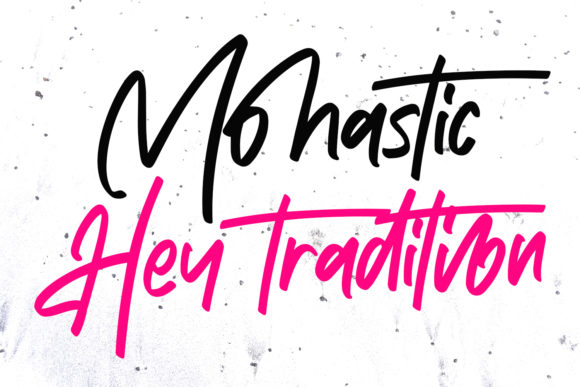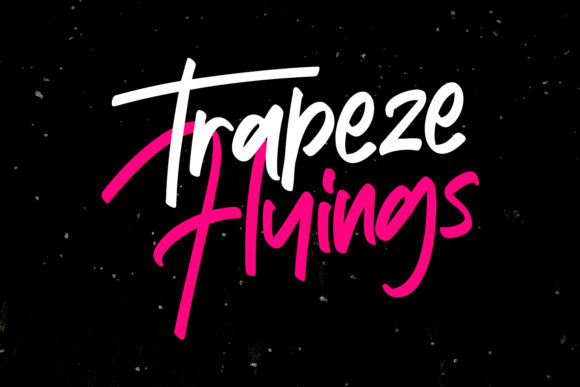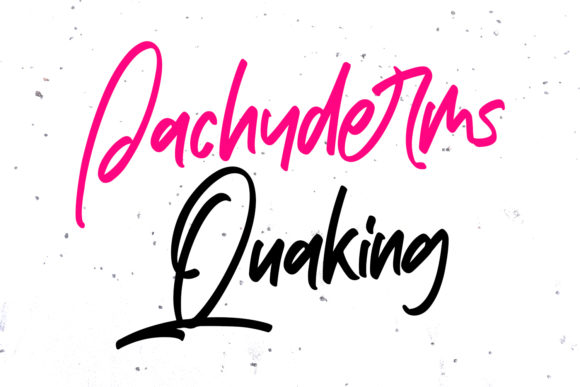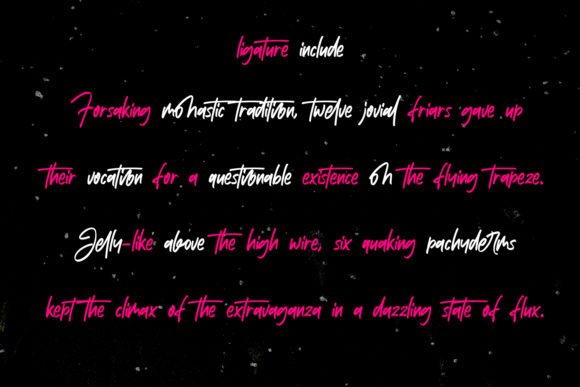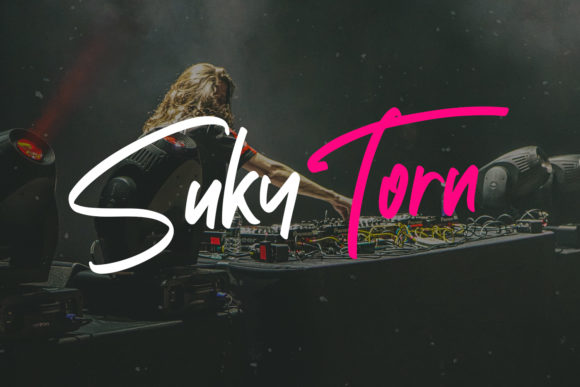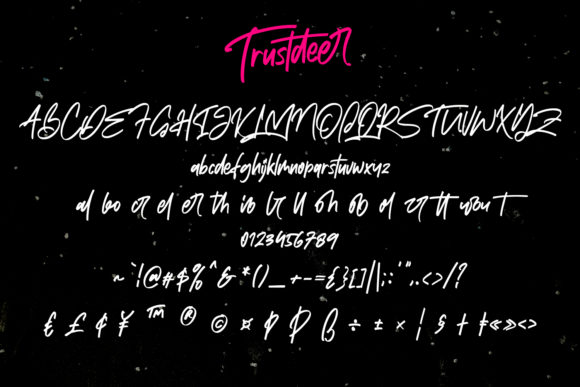
Trustdeer Font
About Trustdeer Font
Trustdeer is a beautiful handwritten font, carefully handcrafted to become a true favorite. This font will look outstanding in any context, whether it’s being used on busy backgrounds or as a standalone headline!